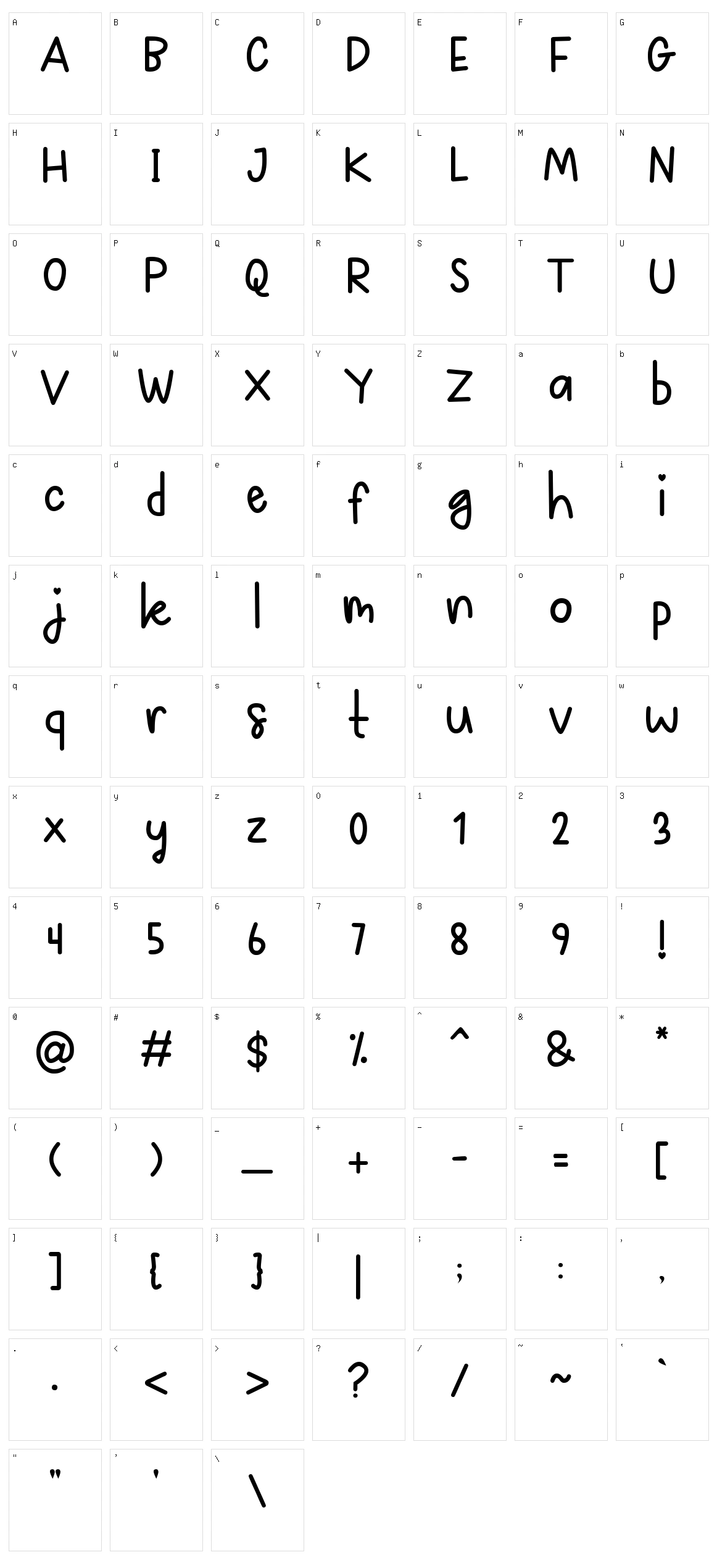
The free font Girlsfa is carefully designed by Letterena Studios, showcasing a thoughtful balance of creativity and usability and falls under the Cartoon font style. When you download the ZIP file, it contains only 40.22 KB of font files, making it lightweight and quick to download. Please review the license details below to understand permitted usage and distribution rights. If license information is not available, we recommend using this font for personal projects only or contacting the author directly for commercial usage permissions.